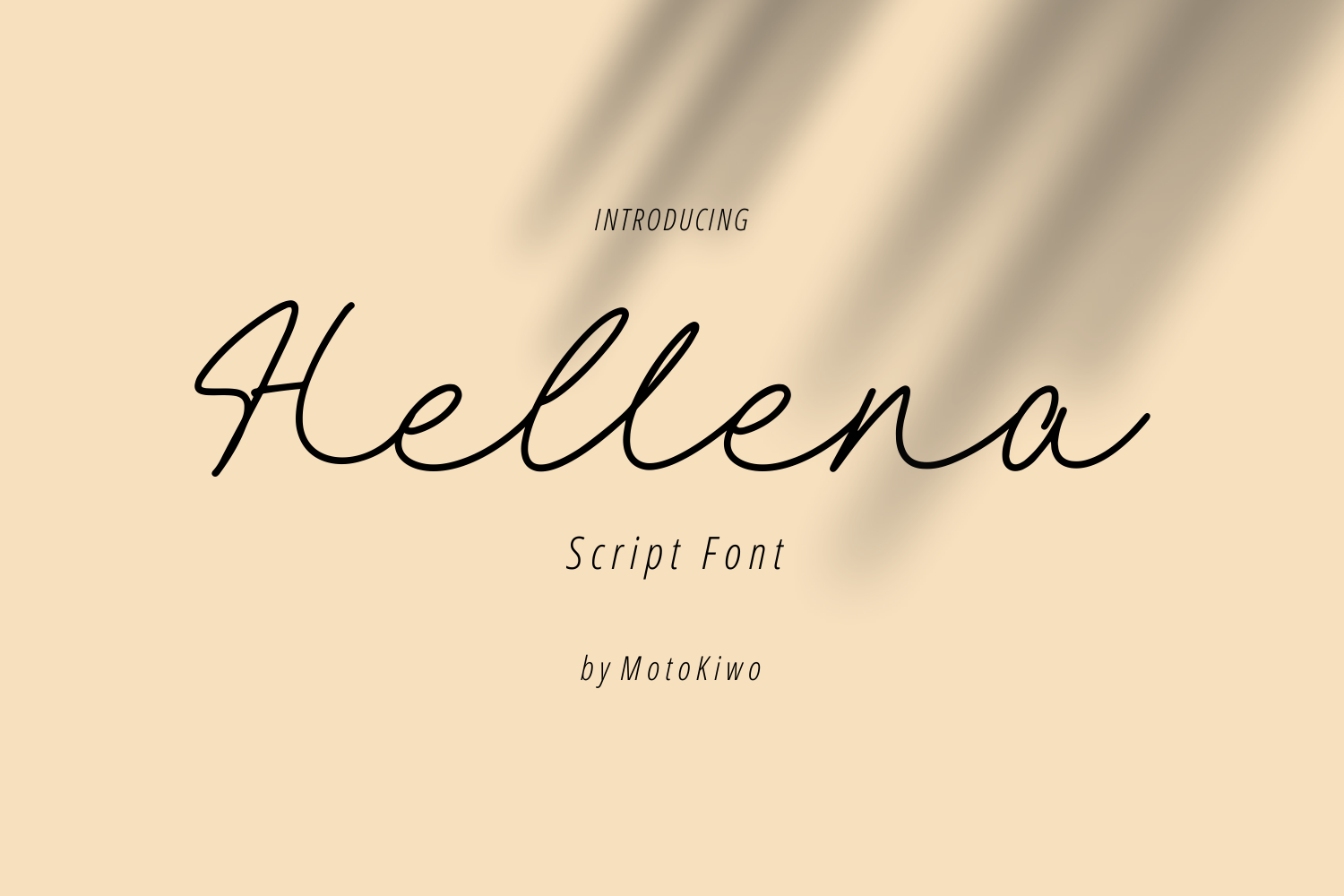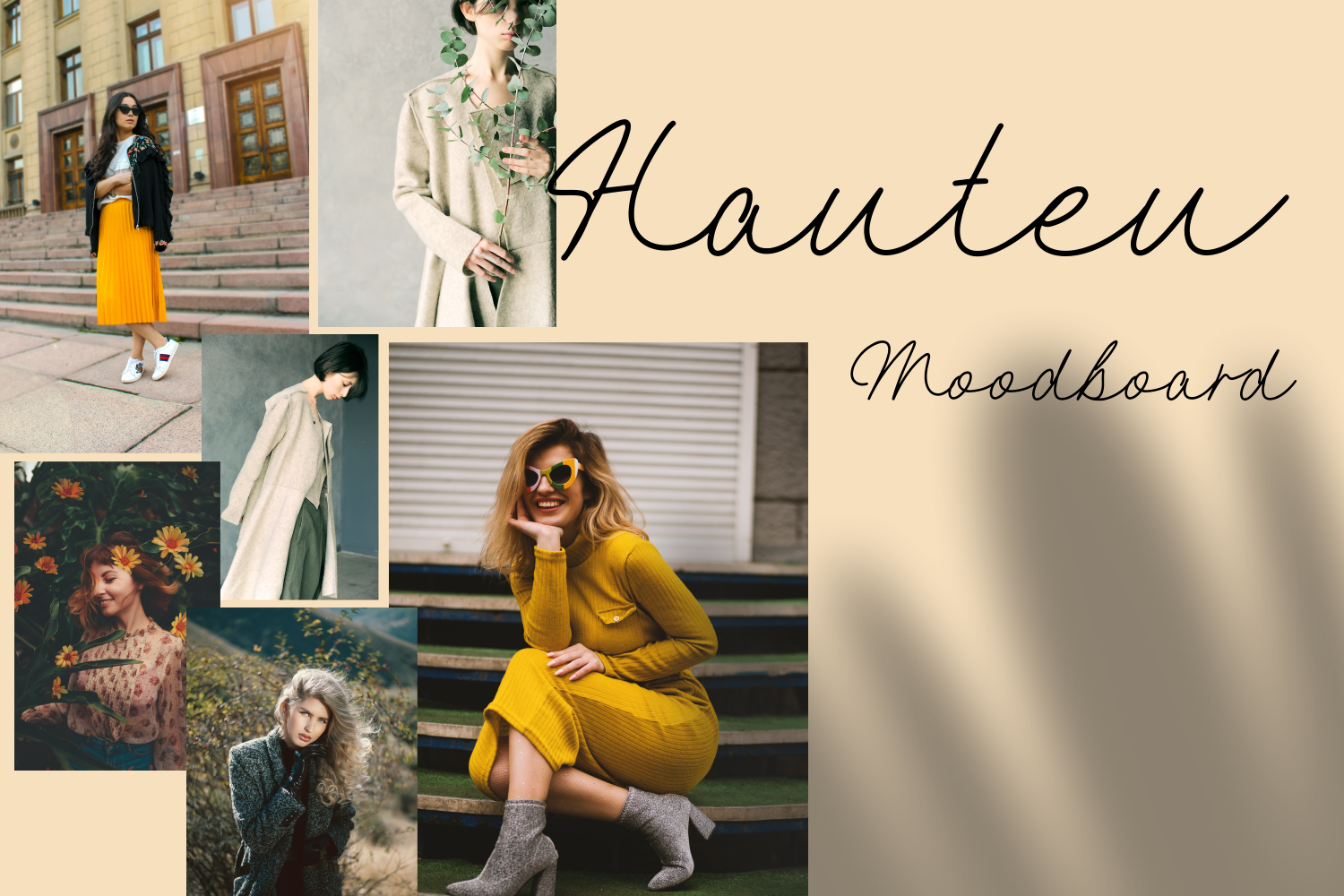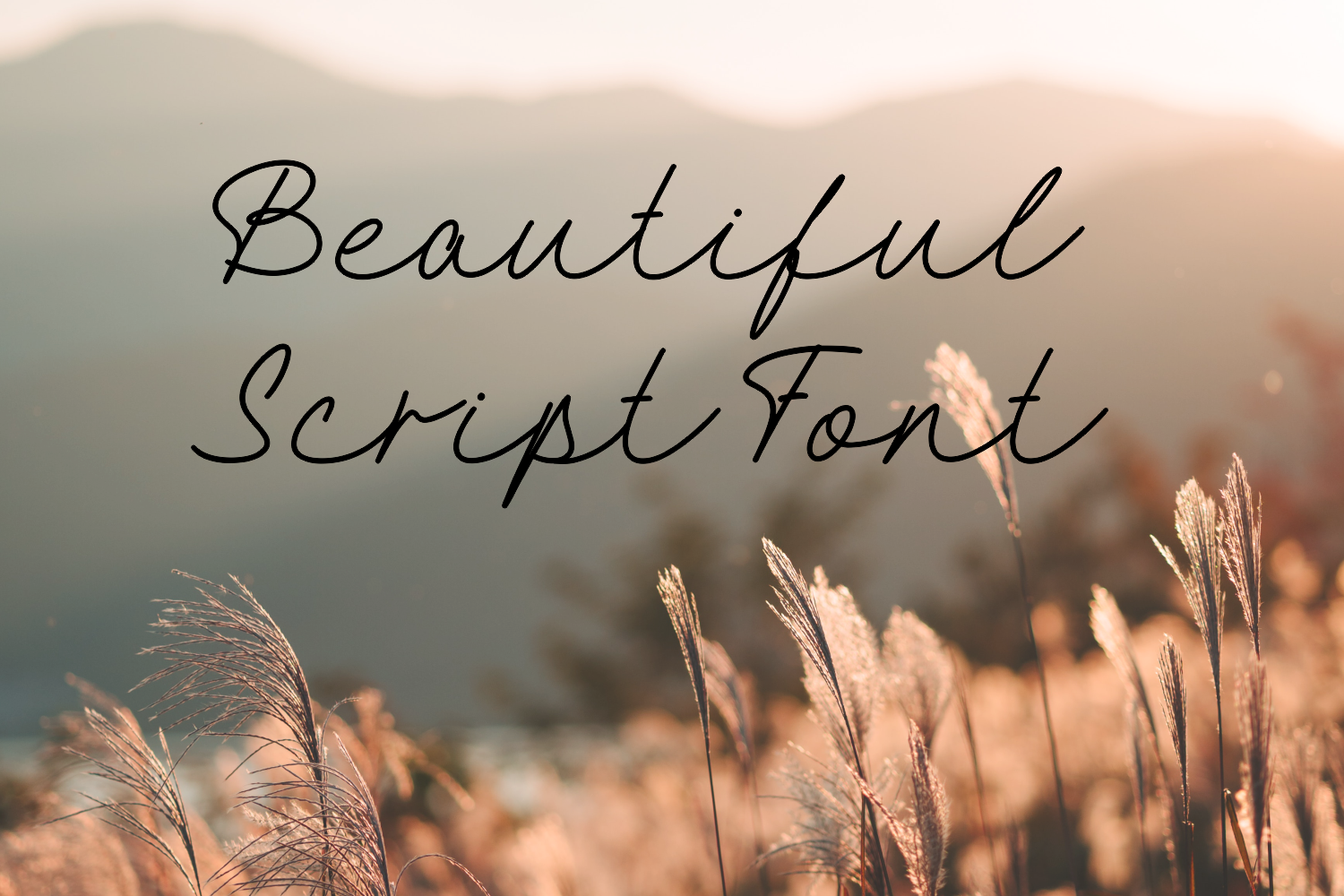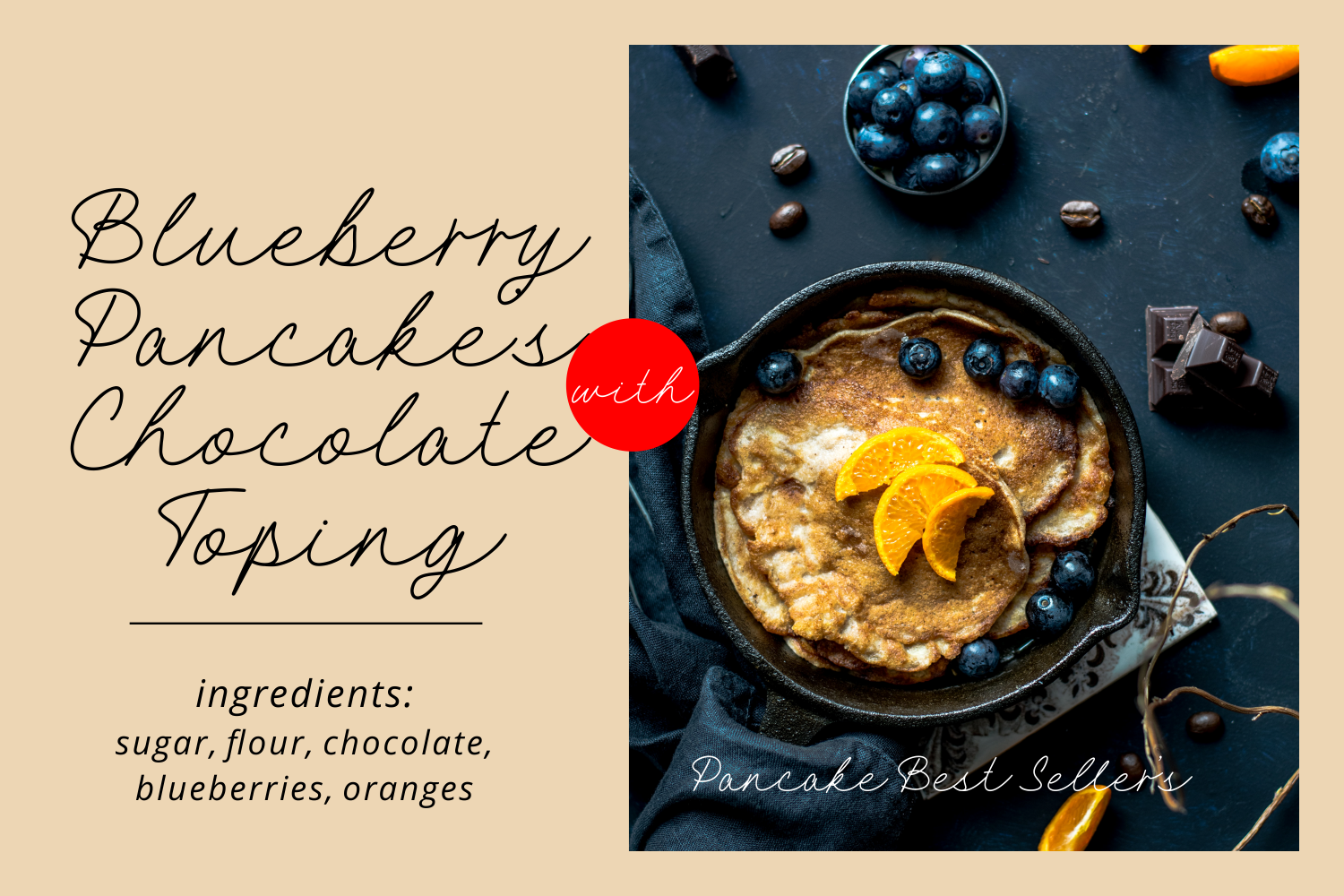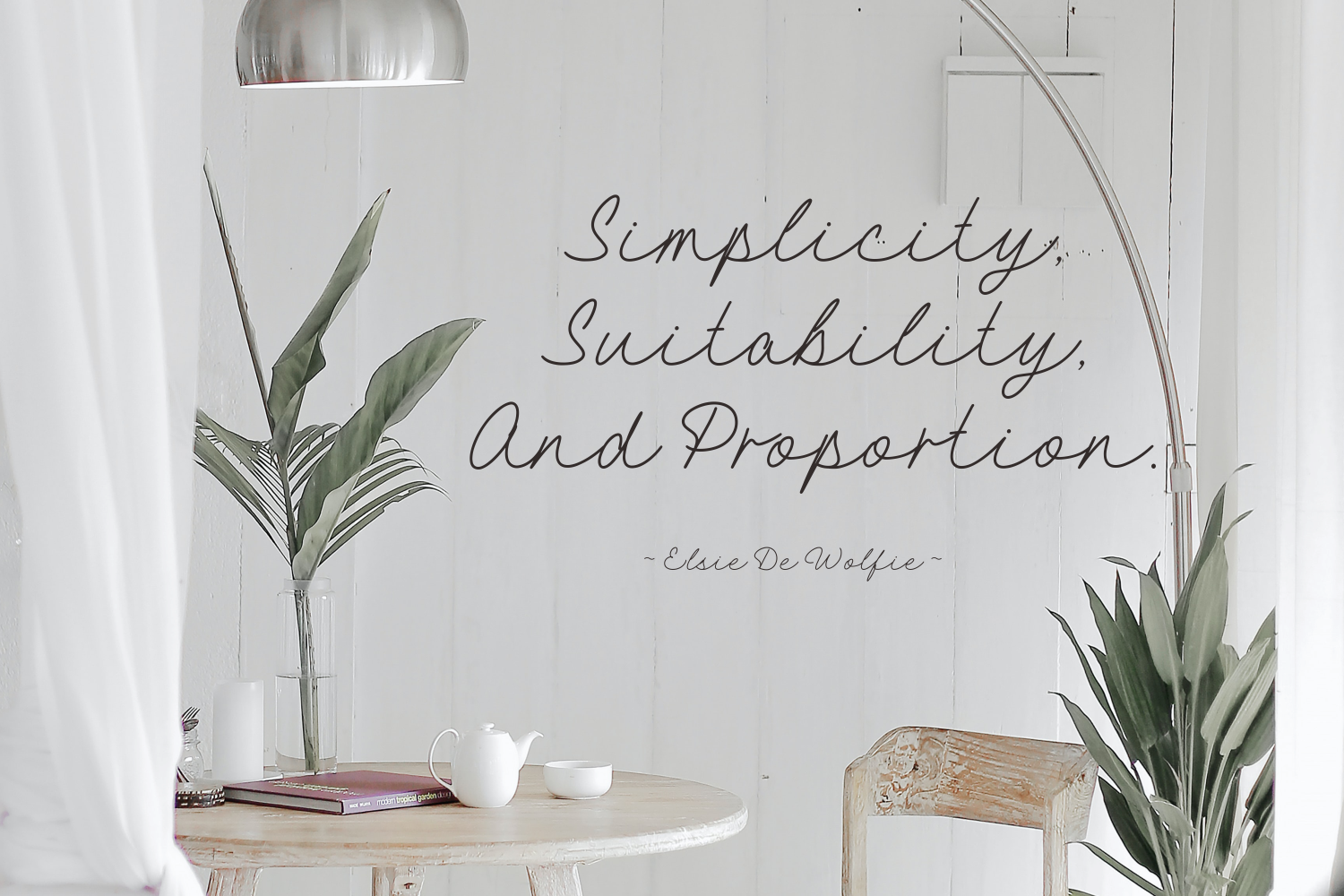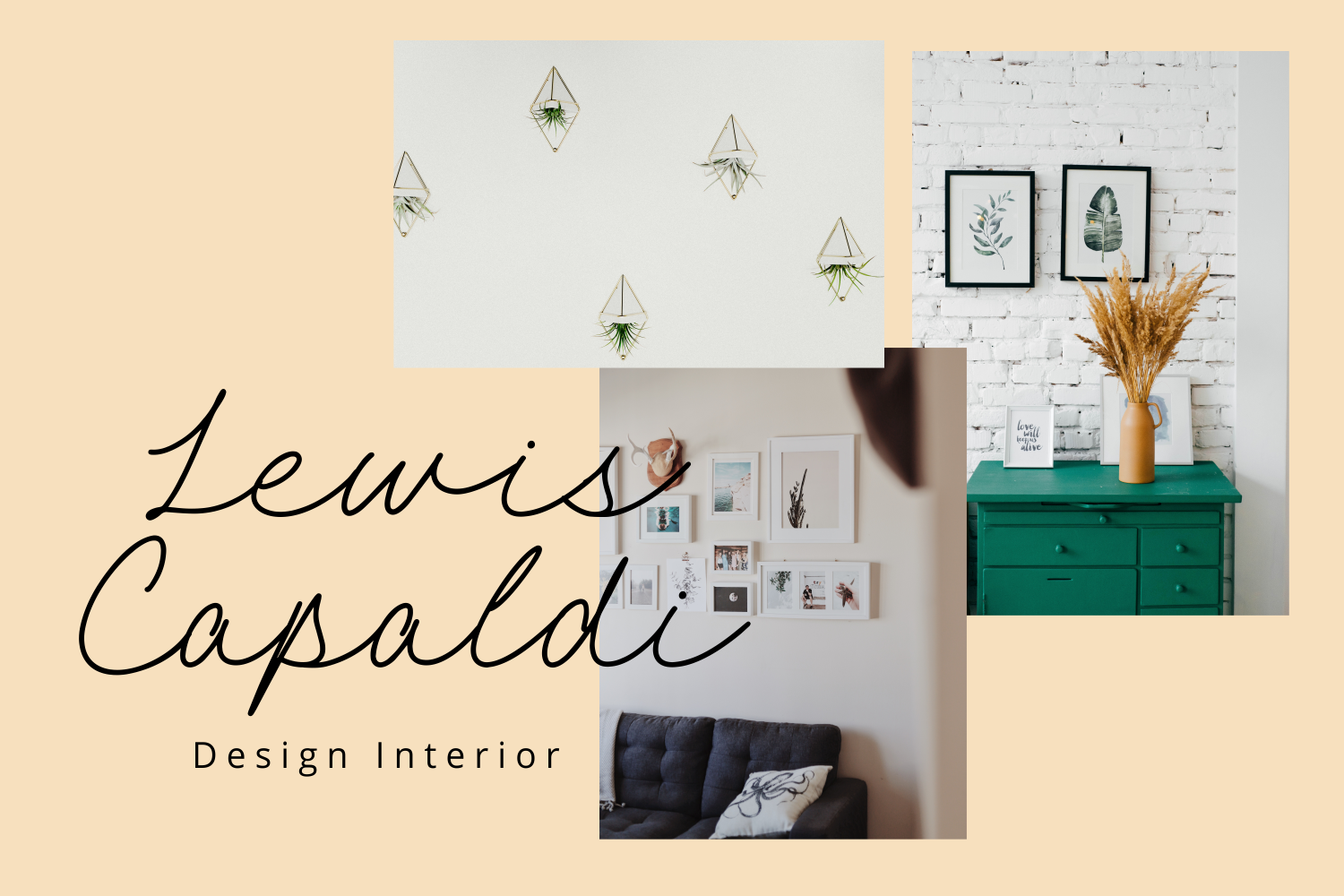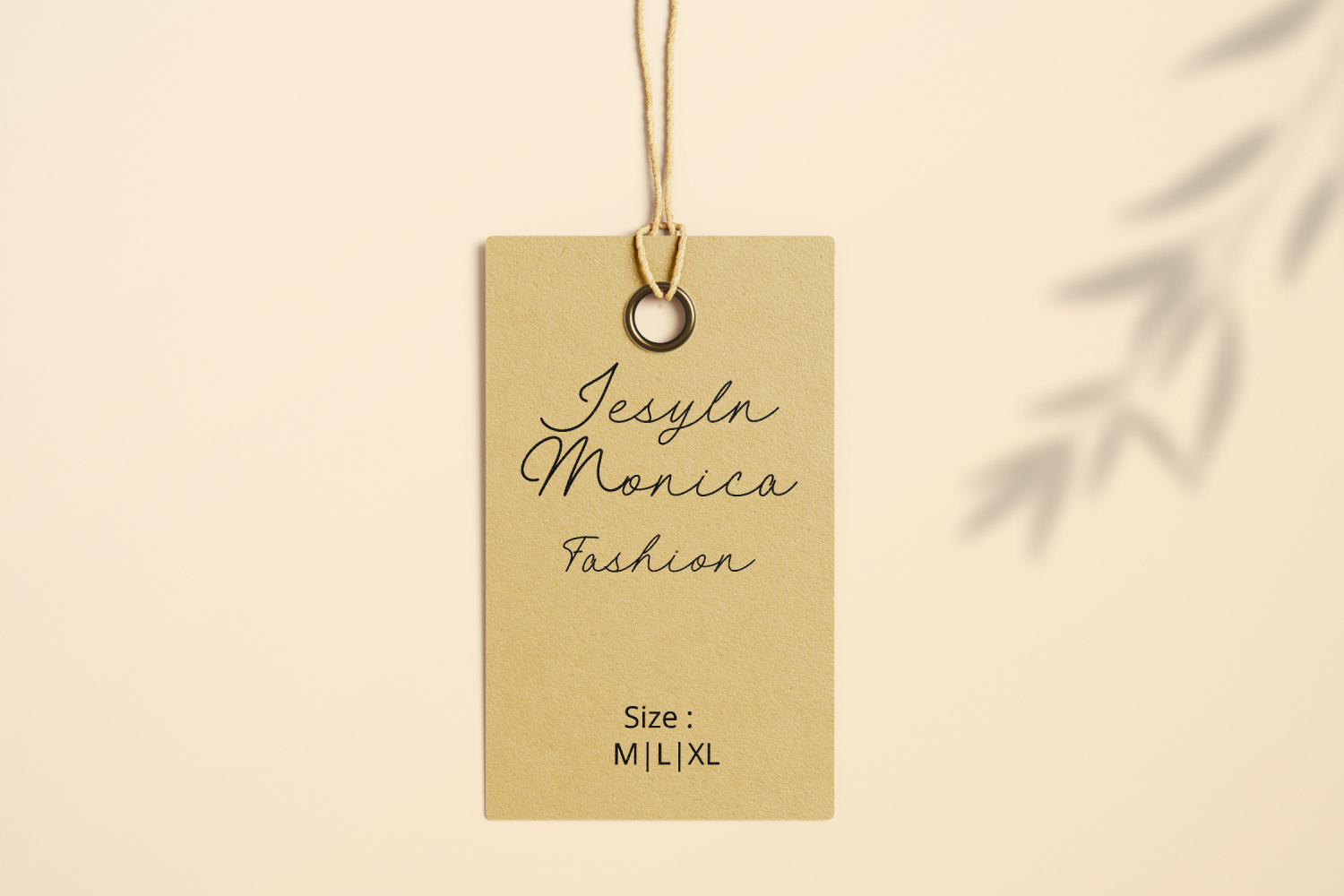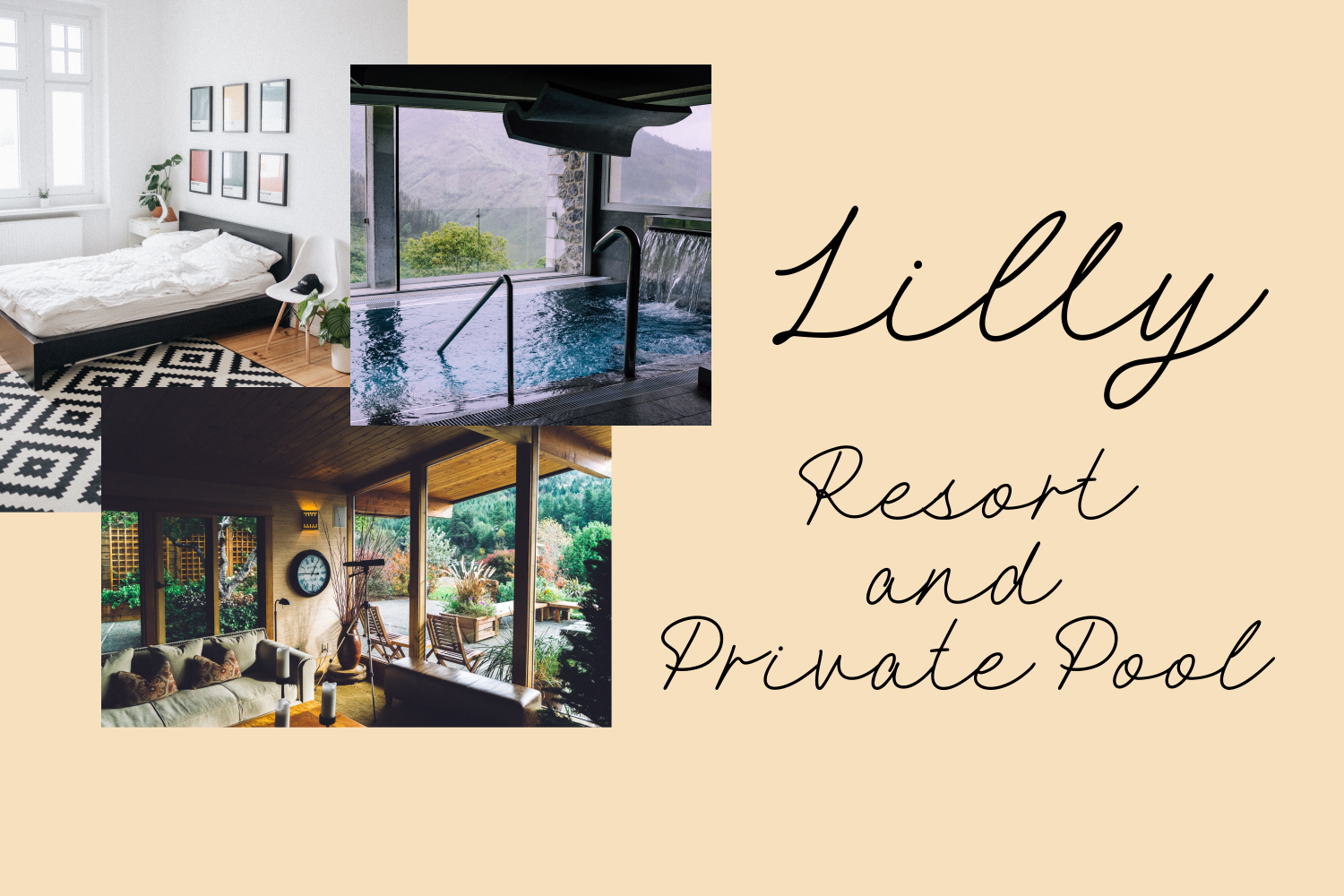
Hellena is a monoline script font characterized by its fluid, continuous strokes and relaxed, handwritten aesthetic. The letterforms maintain a consistent line weight throughout, creating a balanced and approachable appearance that mimics the flow of a modern pen. Each character connects seamlessly to the next, lending a sense of continuity and charm to the text. With its gentle curves and unpretentious slant, the typeface conveys a warm, organic mood that feels both personal and thoughtfully crafted.
This script is well-suited for applications that require a touch of human personality without overwhelming the design. It works effectively for social media graphics, menu headers, and personalized stationery. Whether used for a culinary blog post or a casual invitation, Hellena adds a soft, inviting quality to headlines and short phrases, ensuring the message feels approachable and authentic.